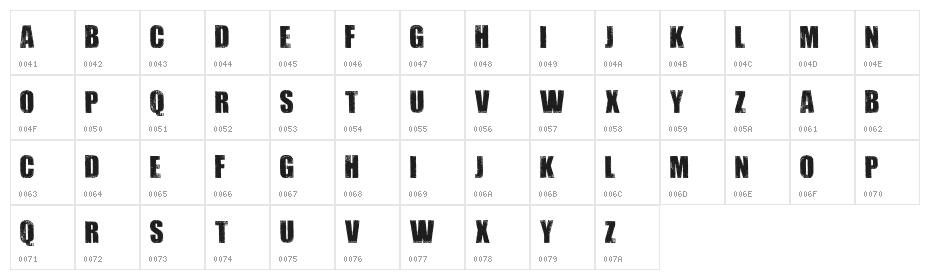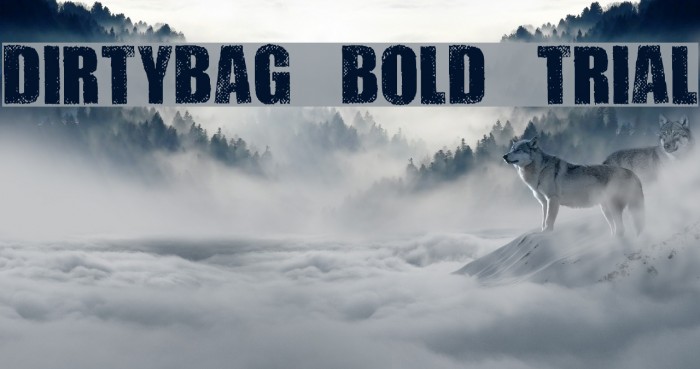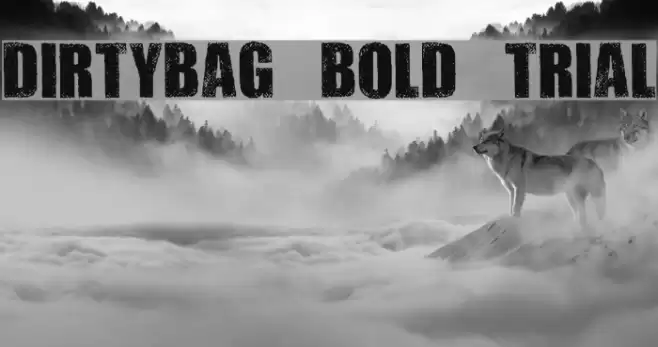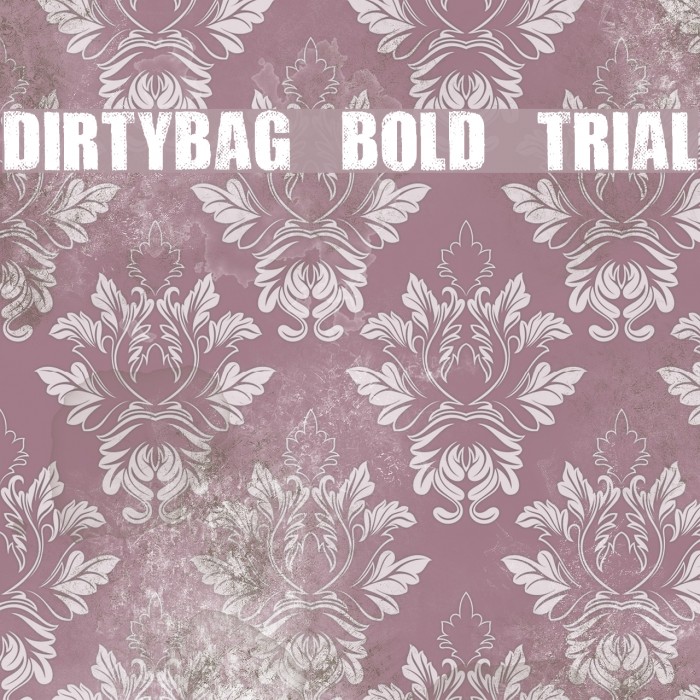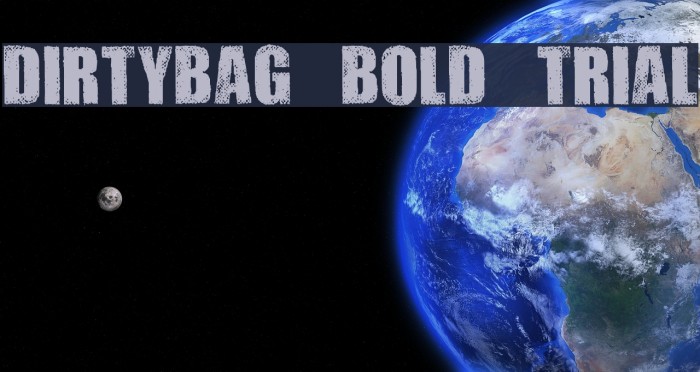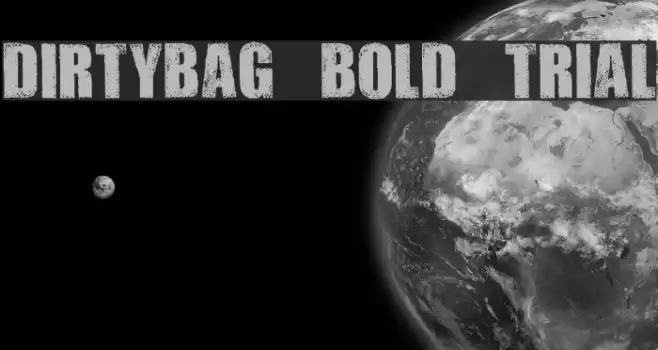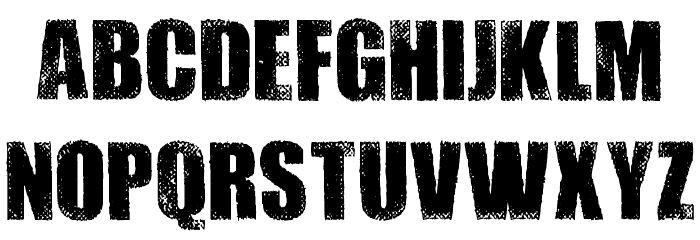
DIRTYBAG BOLD TRIAL Font
DIRTYBAG BOLD TRIAL Description
This font features a bold, distressed style with a gritty texture that gives it a rugged and worn appearance. The uppercase letters are uniformly bold, with a consistent height and width, creating a strong visual impact. The texture within each character adds a sense of depth and dimension, making it ideal for designs that require a vintage or industrial feel. The font's rough edges and irregularities contribute to its unique character, making it stand out in any design project. Its boldness ensures readability while the distressed texture adds an artistic flair.
| Overall Style | Vintage |
| Proposed Projects | Ideal for posters, album covers, branding for rugged products, or any design needing a vintage or industrial touch. |